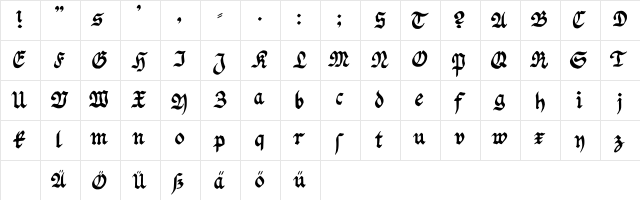
Fraktur Handschrift Regular
Design Context for Fraktur Handschrift Typeface
Fraktur Handschrift channels the dramatic heritage of Fraktur and Gothic scripts, bringing a sense of historical gravitas to any design.
Well-suited to band logos, craft beer branding, tattoo lettering, and heritage-themed identities.
Font Pairing: Pair with a clean neutral sans-serif for body copy to let Fraktur Handschrift's character lead without overwhelming the composition.
Pro Tip: Use Fraktur Handschrift sparingly at large sizes. Even a single word set in blackletter can define the visual register of an entire design.